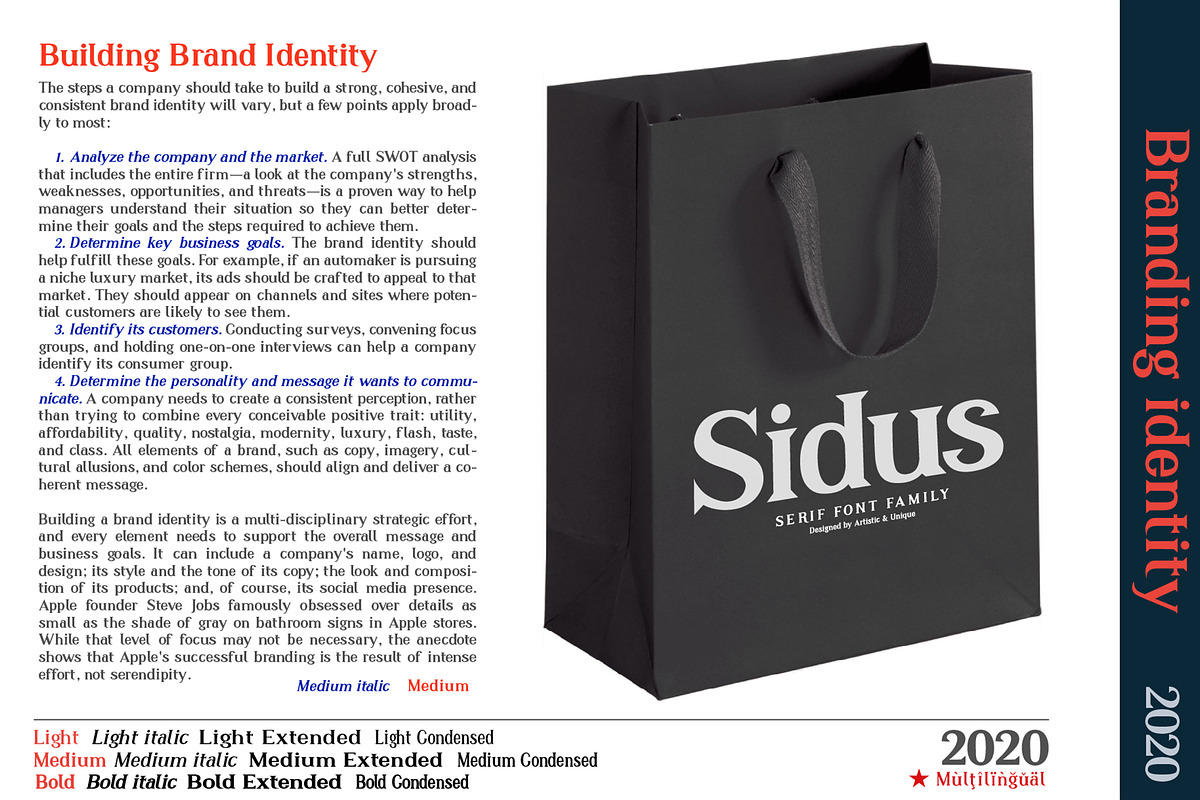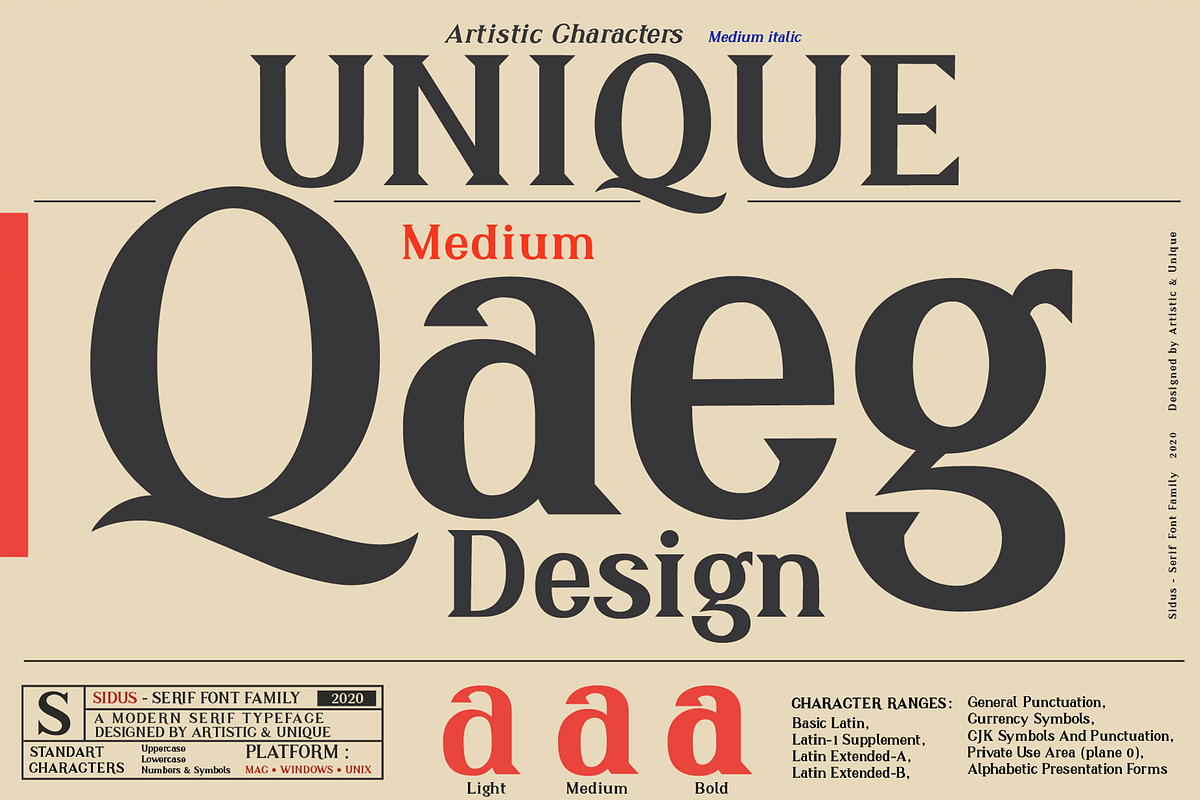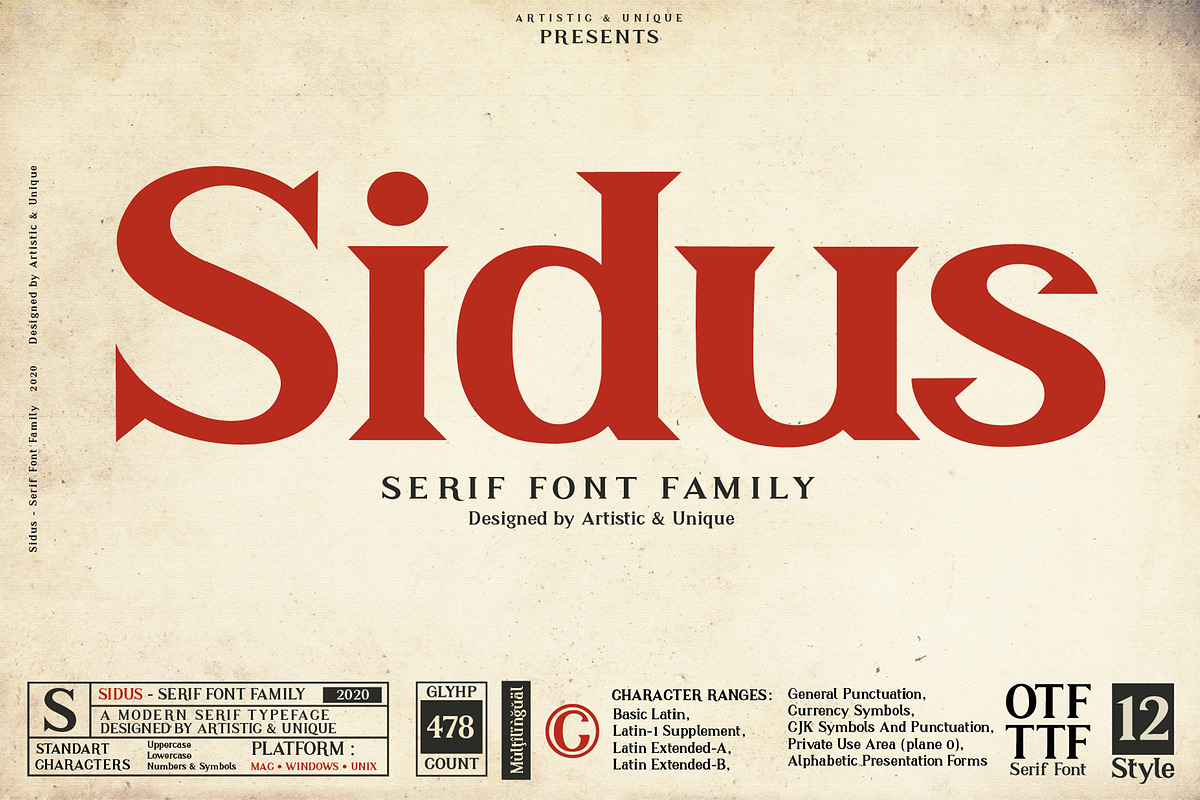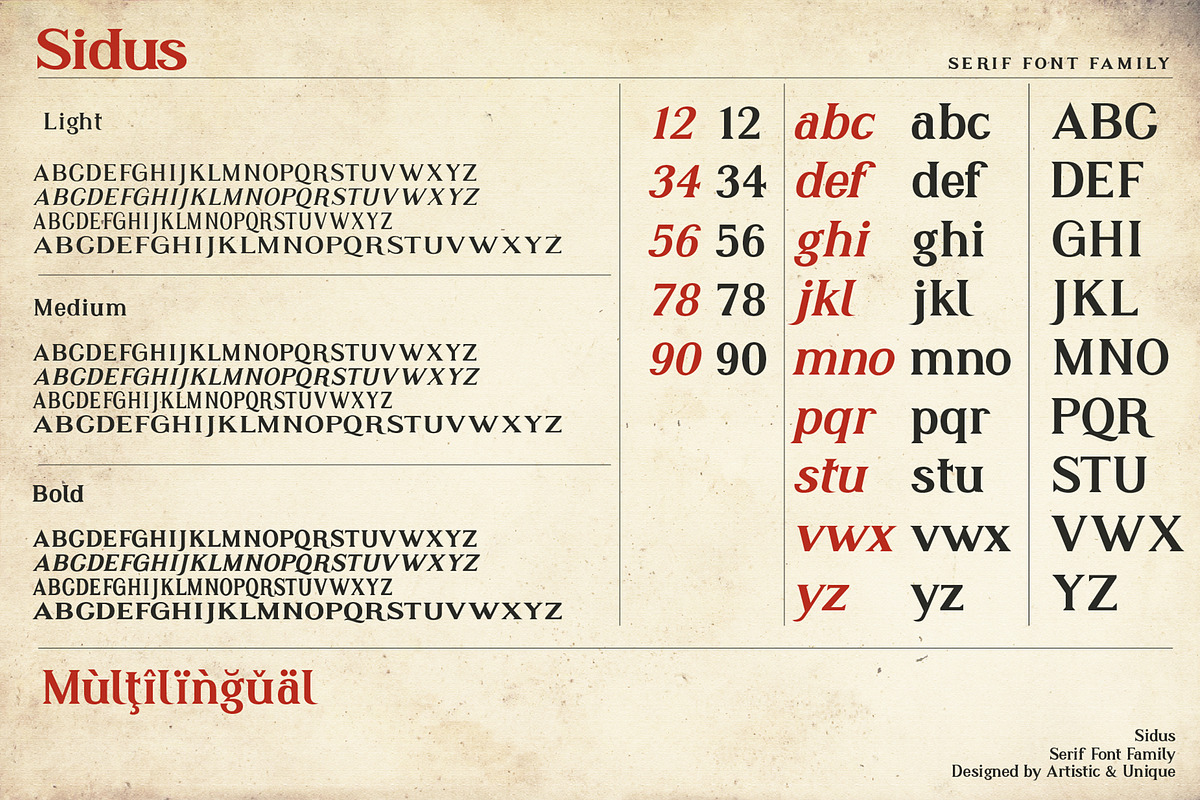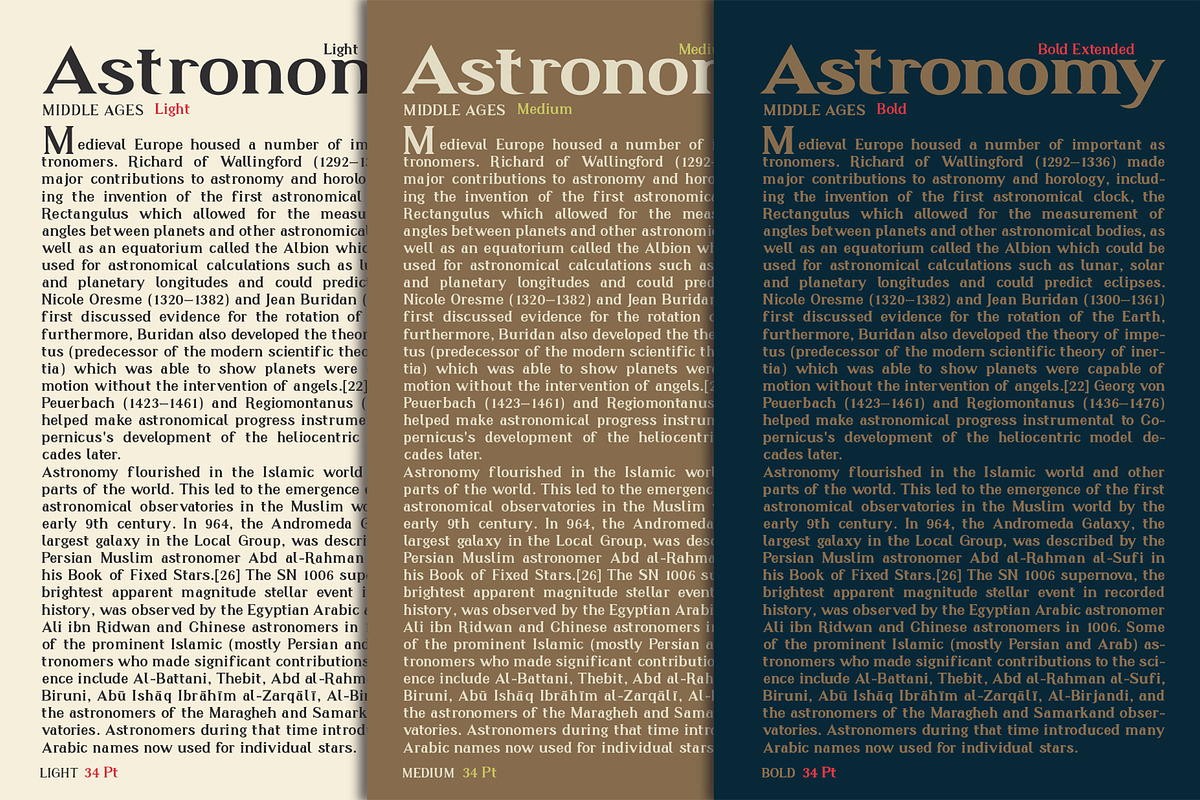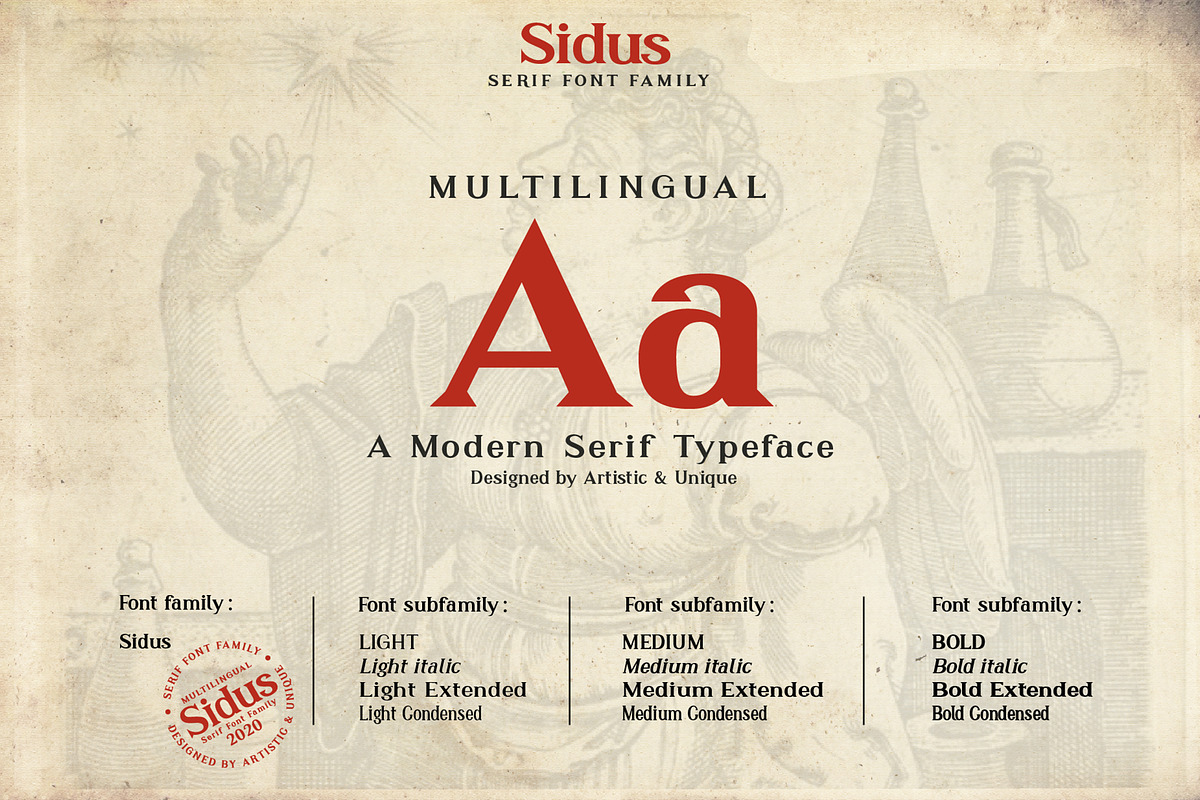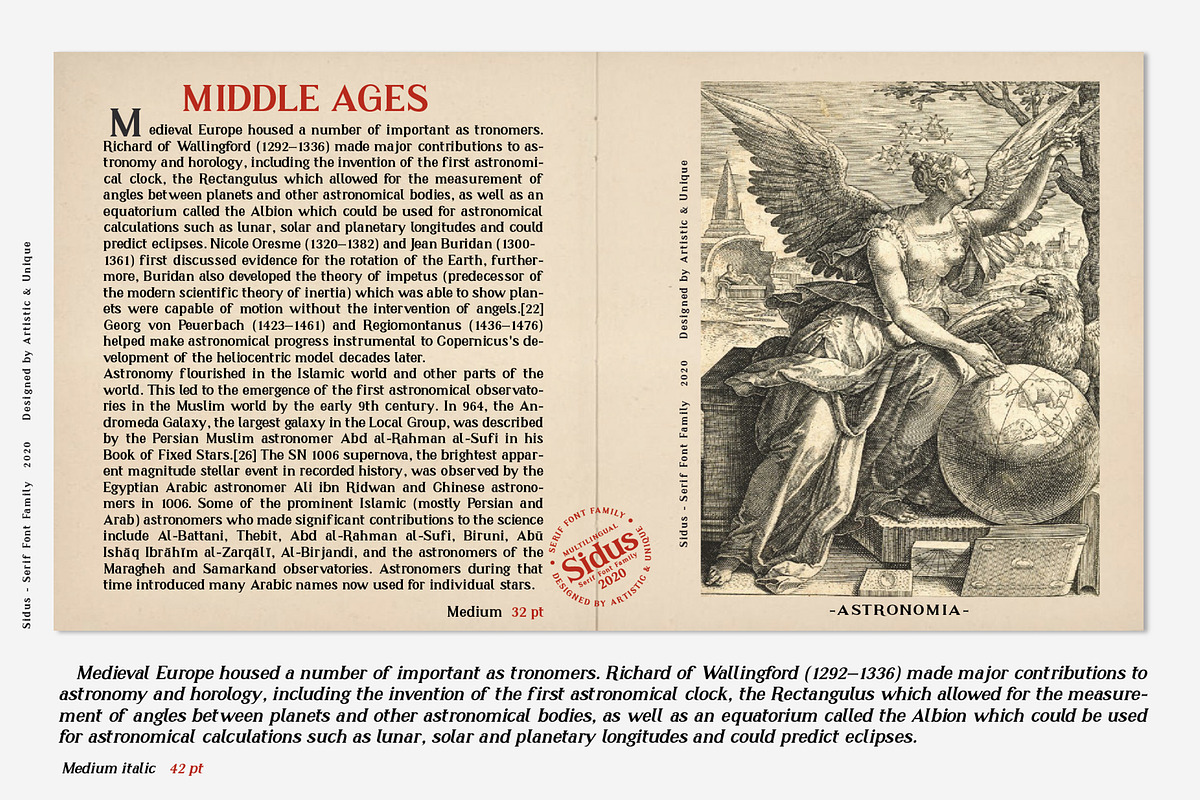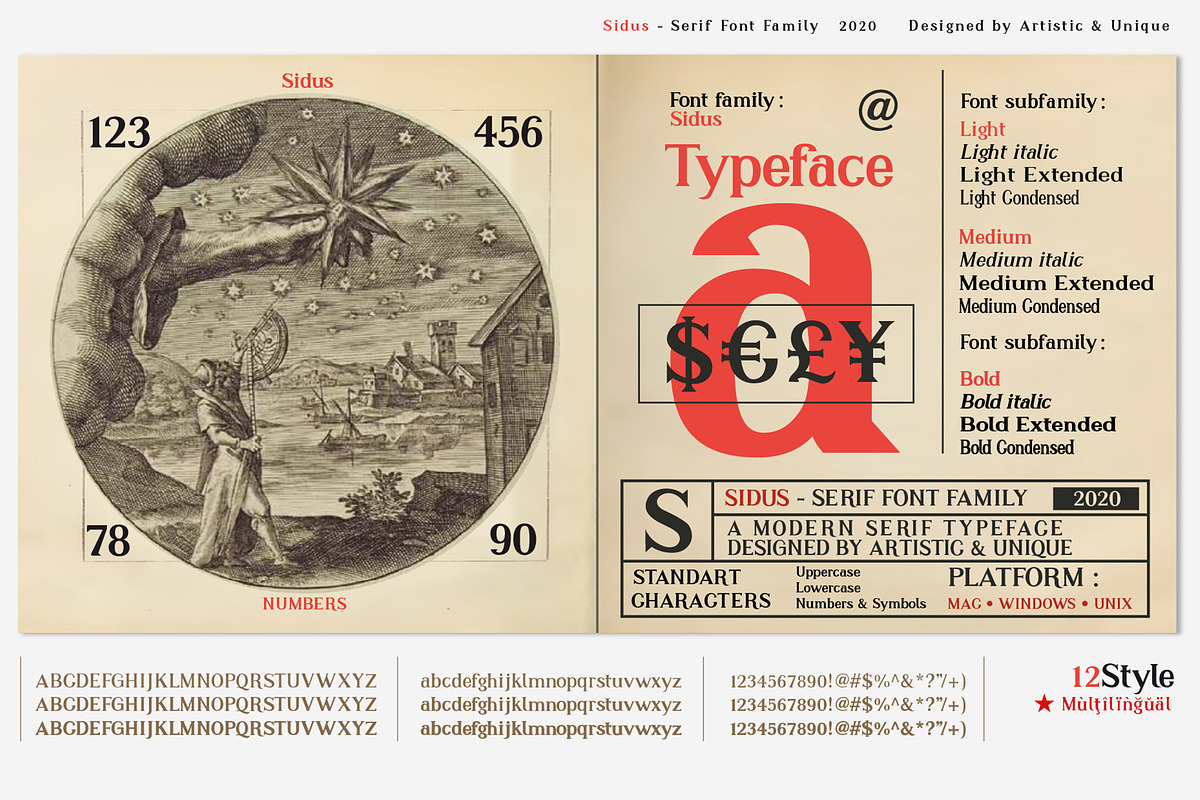
Sidus - Serif font family
Sidus - Serif Font Family - Multilingual - 12 Style (2020)
Sidus font bringing the old style serif combination with its modern understanding to the present day, making it a versatile family that can be used in many different design projects. This font offers a wide variety of styles to help you discover the best mood for your projects, from body text to large titles, from classic styles to modern and bold styles.
It is very suitable for books and magazines, magazine covers, editorials, headlines, websites, logos, invitations, branding, advertising and more.
With this font you can create your unique designs.